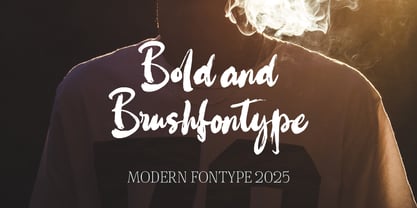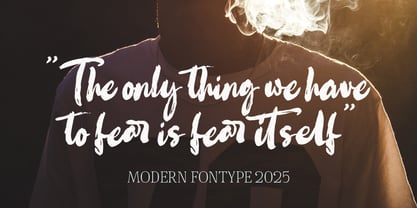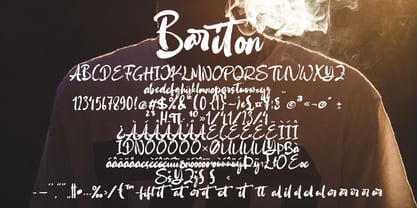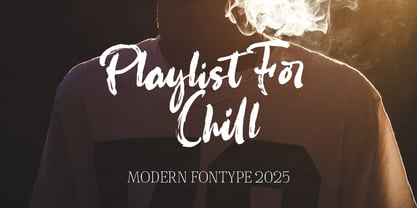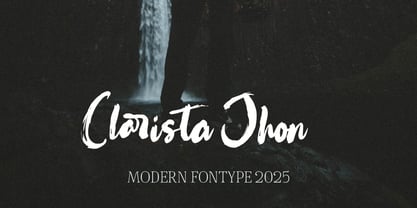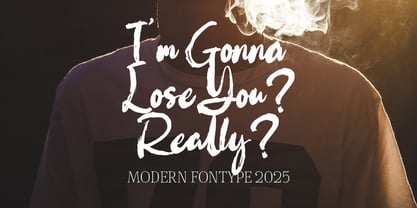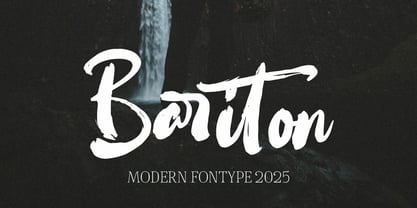
Bariton
by Naatypo
The Bariton Font Family was designed by Kurnia Elis Setyorini and published by Naatypo. Bariton contains 1 styles.
Bariton is a hand brush font made with brushes and ink. This typeface is ideal for use in thick watercolor designs or handwriting styles, such as blog titles, posters, wedding elements, t-shirts, clothing, book covers, business cards, greeting cards, branding, merchandise etc.